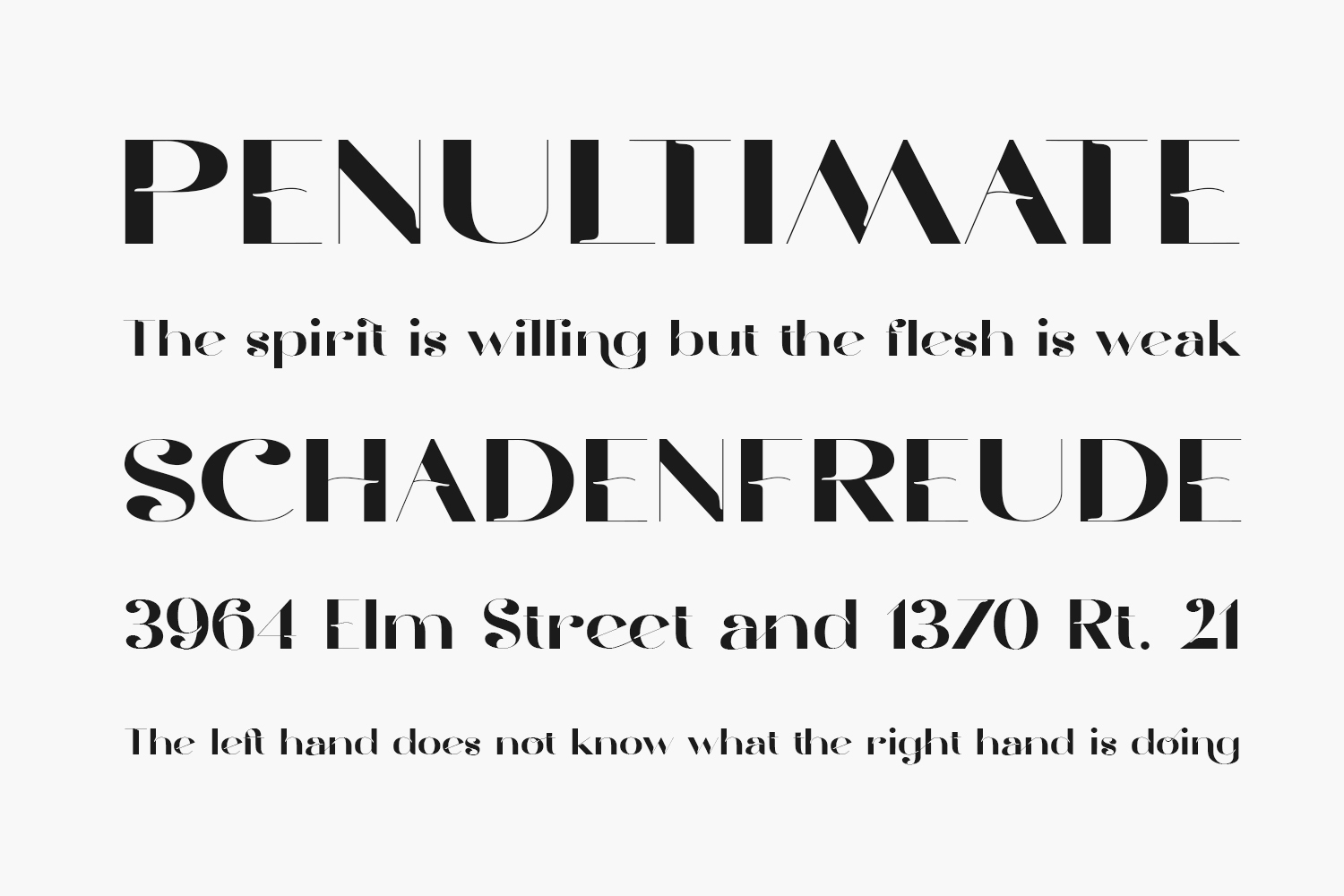
Gramling Free Font is a chic, modern and trendy display font. This font is ideal for writing web designs, business cards, or pretty much anything else that requires a futuristic touch. Gramling Free Font was designed by 177Studio and is free for personal use only. Please purchase the full version for commercial use.